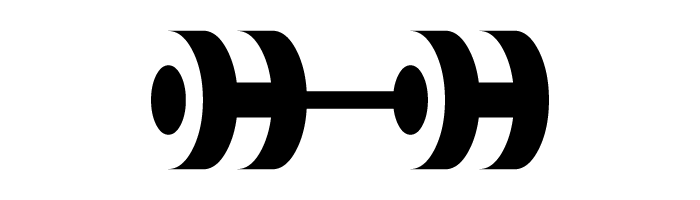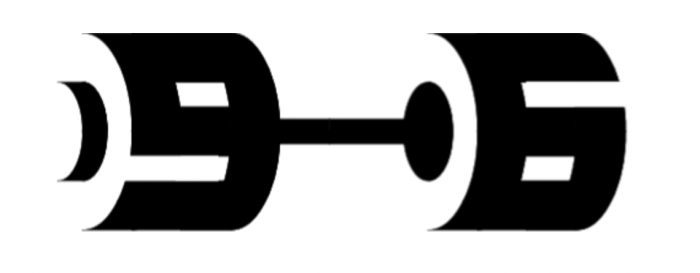
What a clever idea!
This reminds me of rolls of paper, or tape, etc.
BWM: Ha, I actually didn't notice it. I've changed uppercase so the combiantion now more resembles a barbell. As for the numbers, use ( for the left part and ) for the right part. Type this (9-)6 and you should get this:
I like it!
Congratulations! FontStruct Staff have deemed your FontStruction worthy of special mention. “KD Ziltemir” is now a Top Pick.
Strong congrats on the TP!